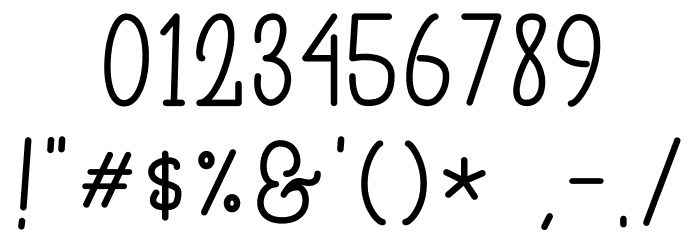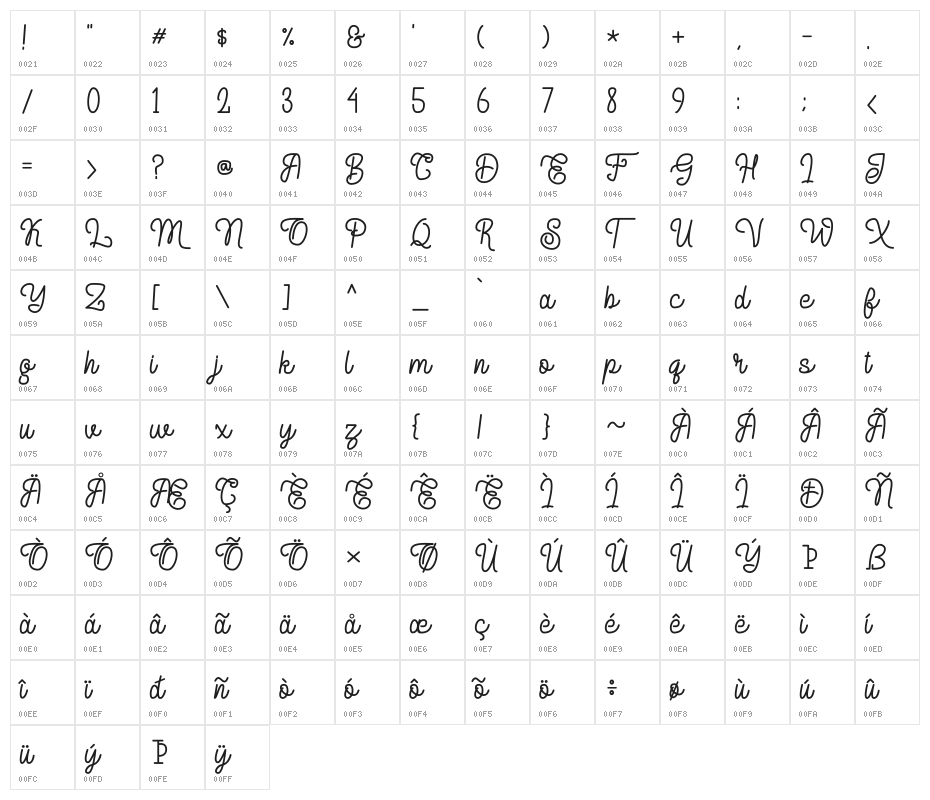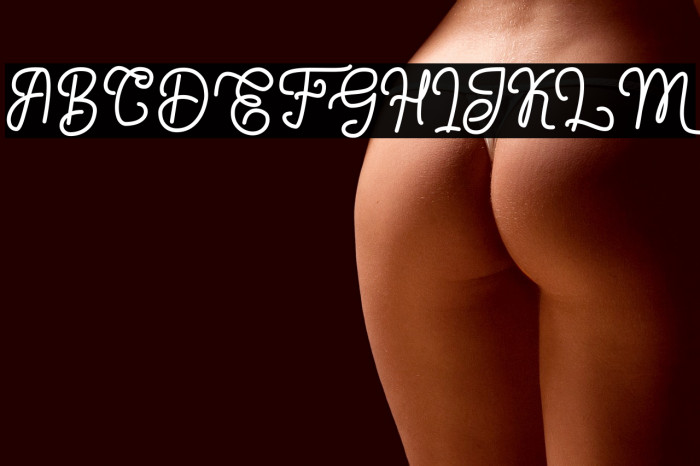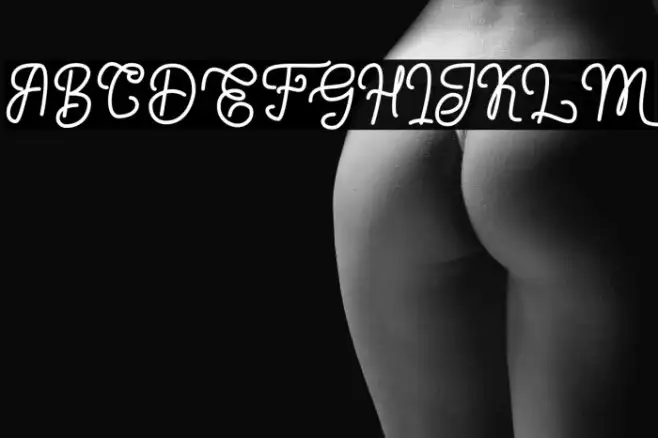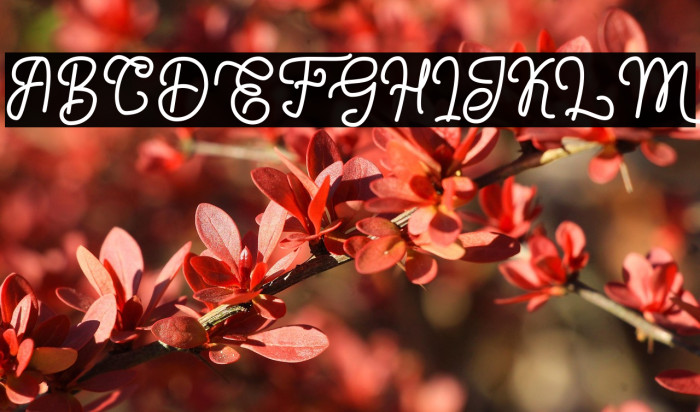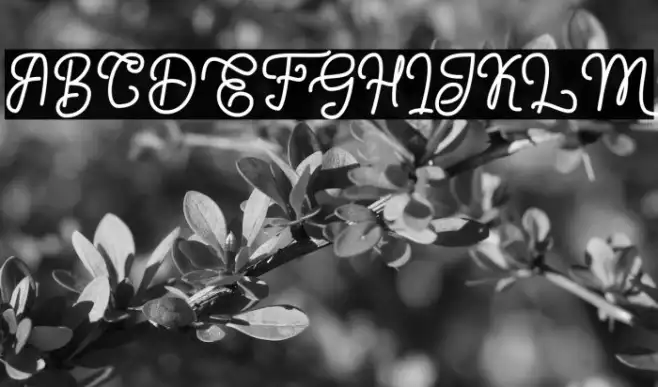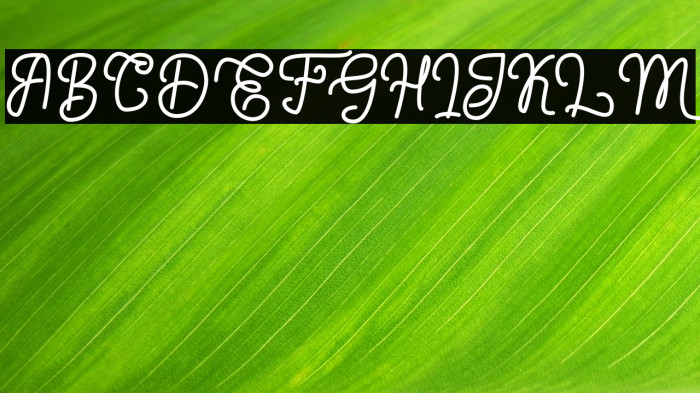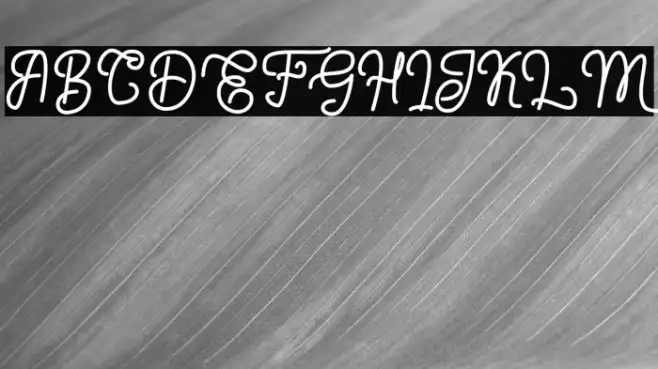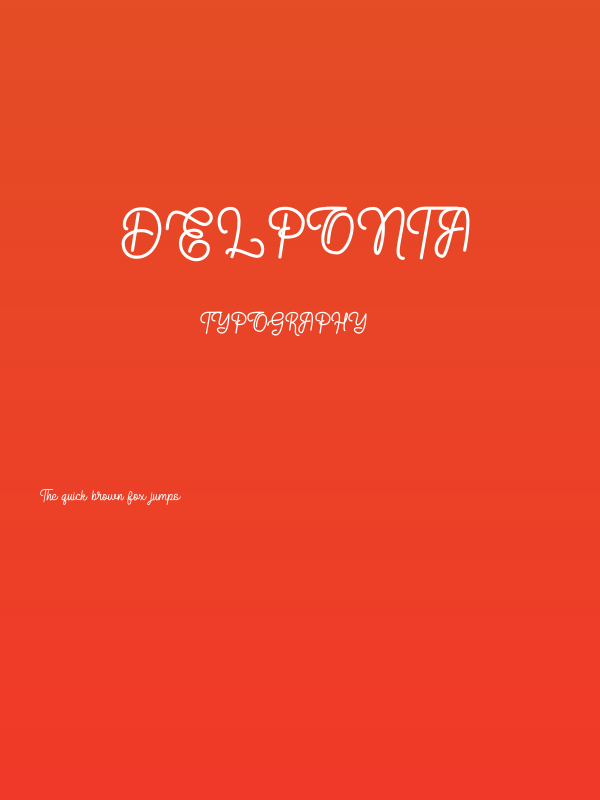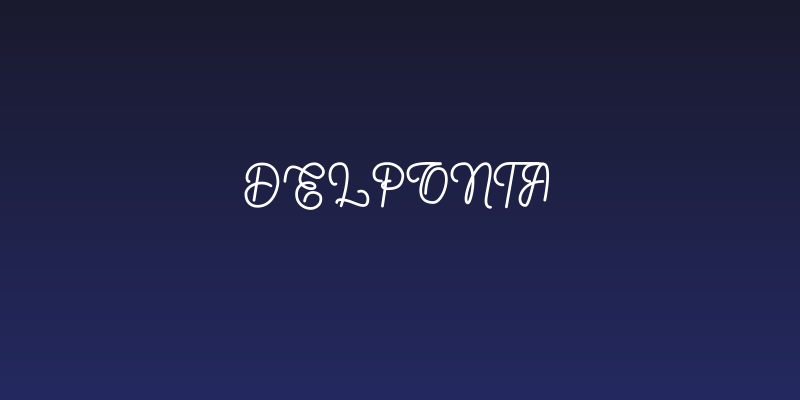
Delponta Font
Delponta Description
This font features a playful and elegant script style with a flowing, cursive design. The uppercase letters are characterized by their intricate loops and swirls, giving them a whimsical and artistic appearance. The lowercase letters maintain a consistent flow, with smooth curves and a slightly informal touch. Numbers are designed with a similar flair, ensuring they blend seamlessly with the alphabet. Special characters are crafted to match the overall aesthetic, making this font versatile for creative projects. The font's unique style is both eye-catching and legible, making it suitable for a variety of design applications.
| Proposed Projects | Ideal for wedding invitations, greeting cards, branding, and decorative signage. |